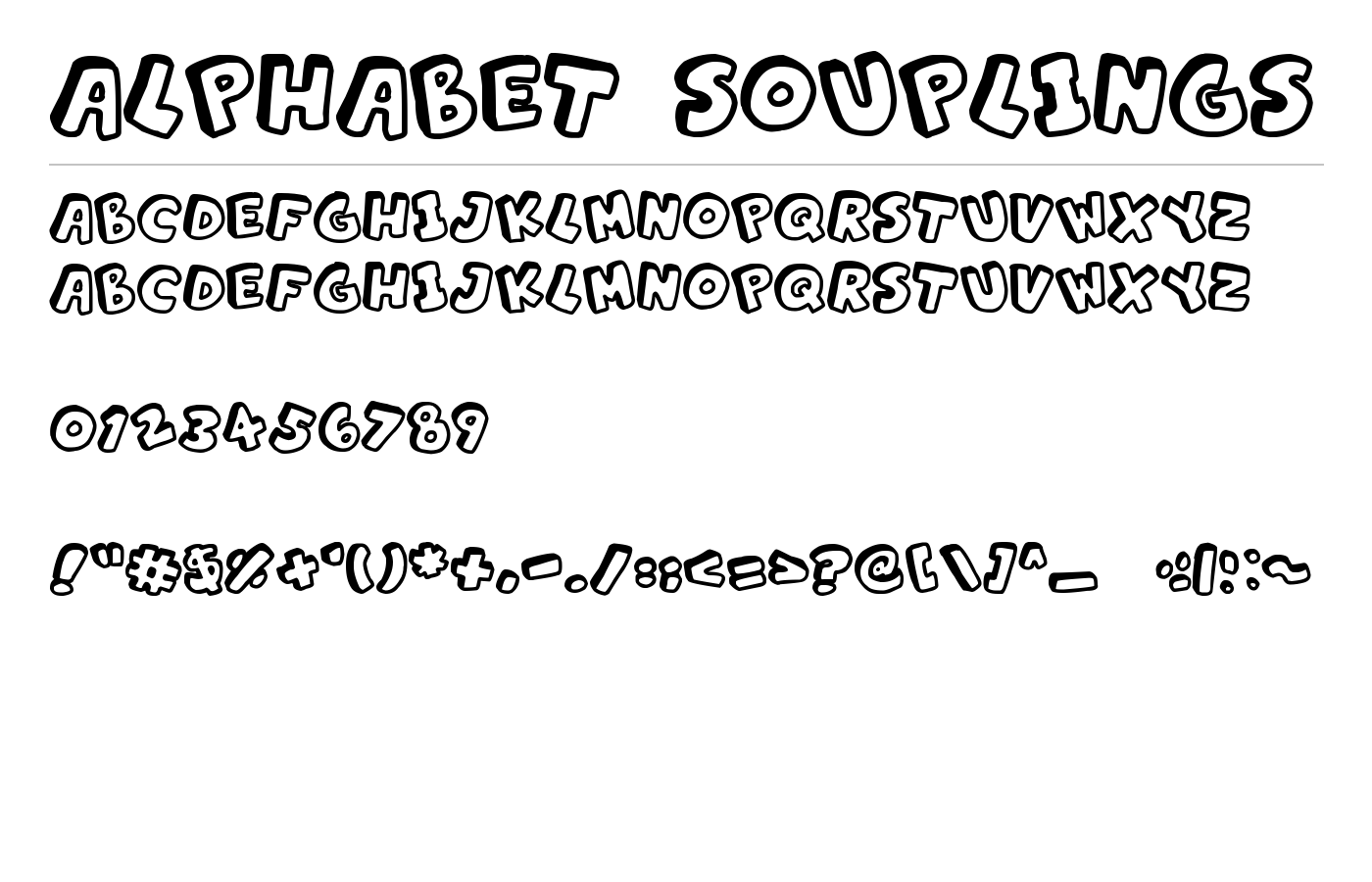
Alphabet Souplings is a playful, hand-drawn sans serif font characterized by bold, rounded letterforms and a casual, lively style. Its bubbly shapes and uneven lines give it a fun, informal personality, making it perfect for children’s books, party invitations, or any creative project needing a youthful, energetic vibe. This font stands out best in display use where its quirky charm can shine.
Alphabet Souplings Font
About Alphabet Souplings Font